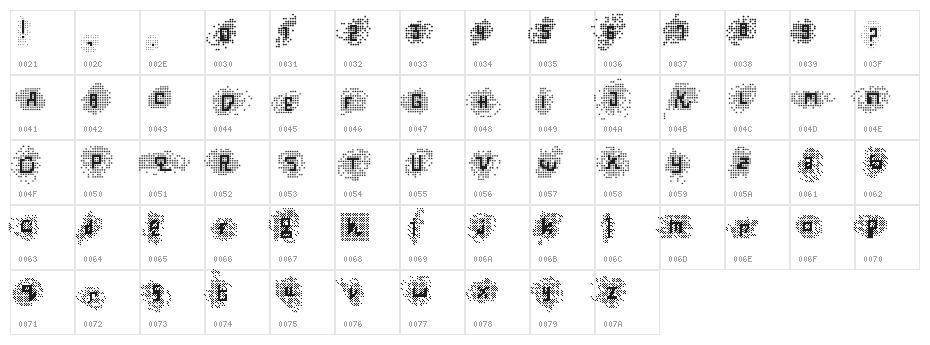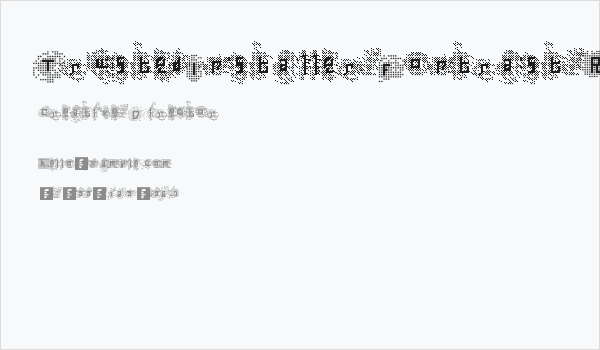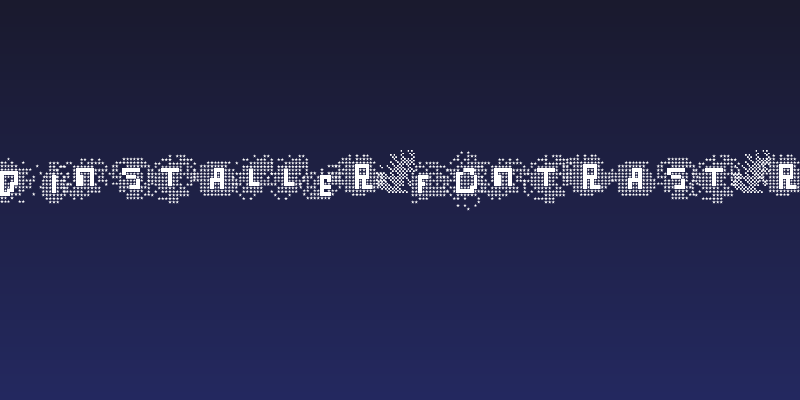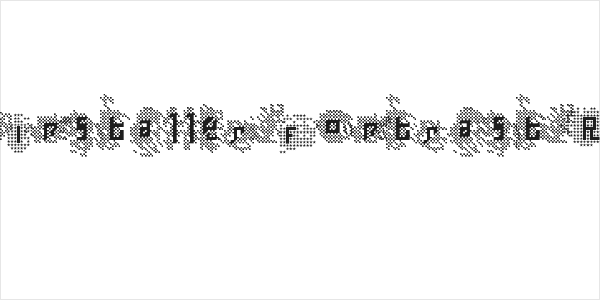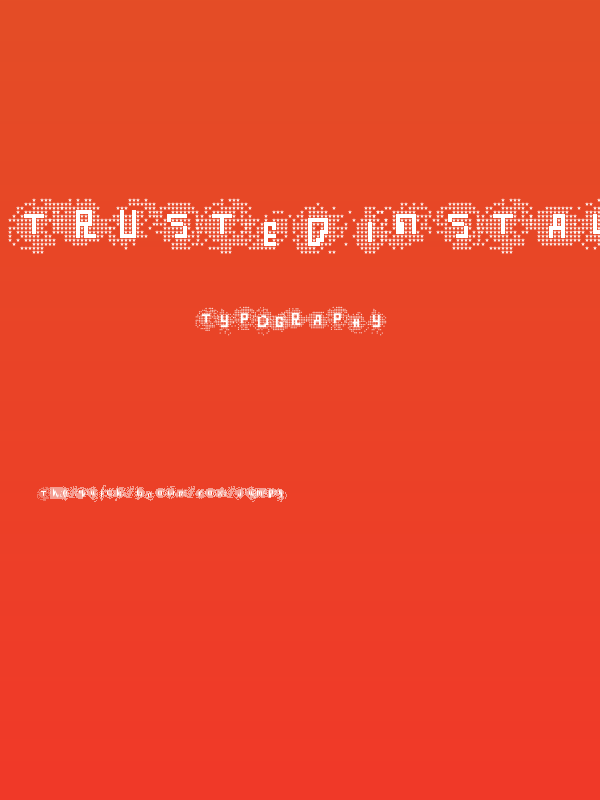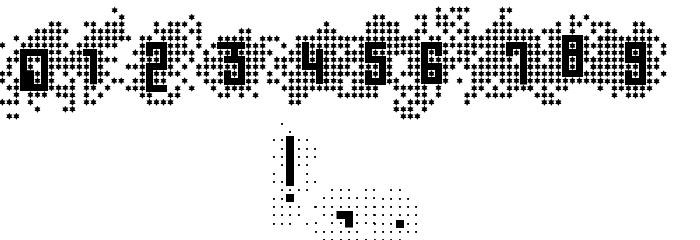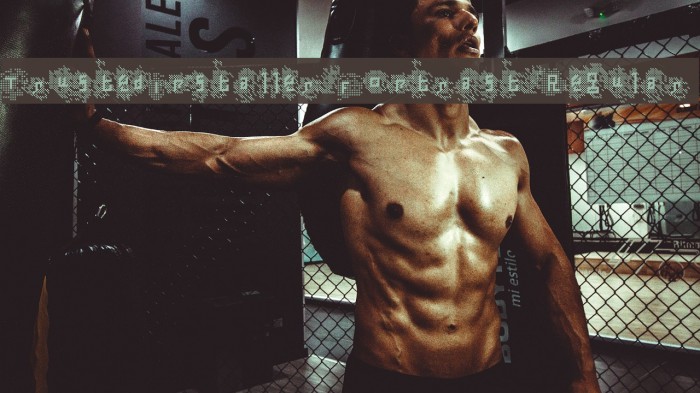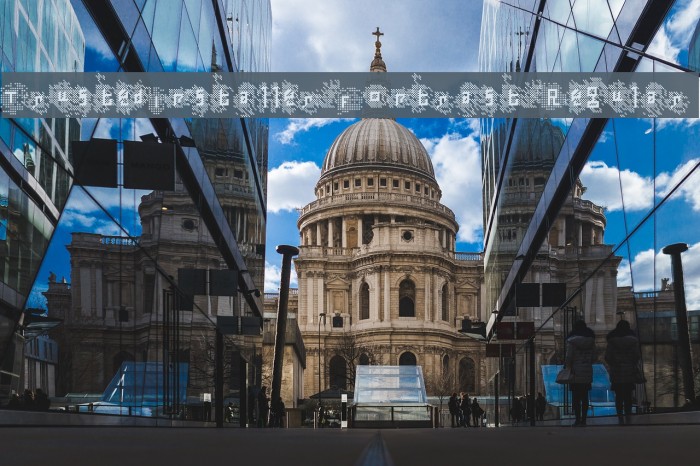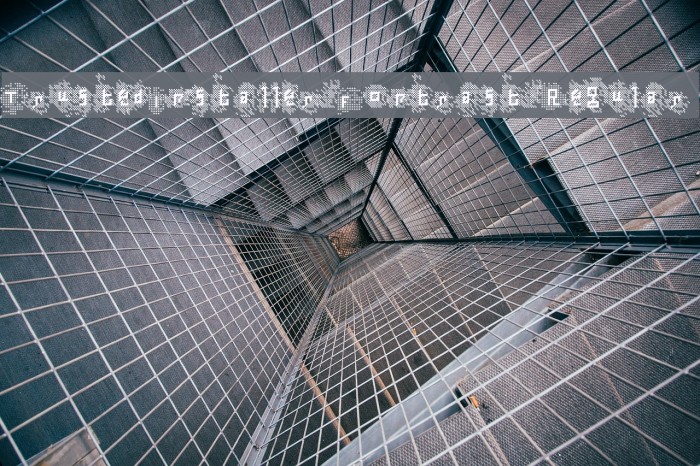
TrustedInstaller Fontrast Regular Font
TrustedInstaller Fontrast Regular Description
This font features a unique pixelated design, reminiscent of early digital displays or retro video game graphics. Each character is composed of a grid of dots, creating a textured and layered effect that adds depth and visual interest. The letters maintain a consistent height and width, ensuring readability despite the intricate design. The uppercase and lowercase letters share a similar style, with the lowercase being slightly smaller in scale. Numbers and special characters are also included, each following the same pixelated pattern. This font is ideal for projects that require a nostalgic or tech-inspired aesthetic.
| Proposed Projects | Ideal for video game design, tech-themed posters, digital art projects, and retro branding. |